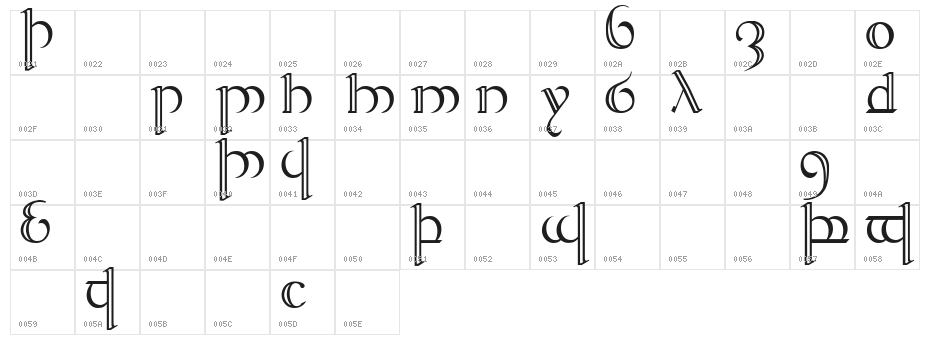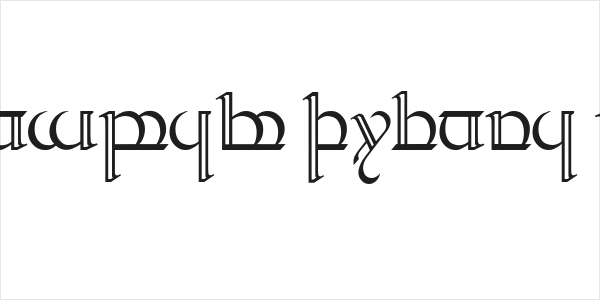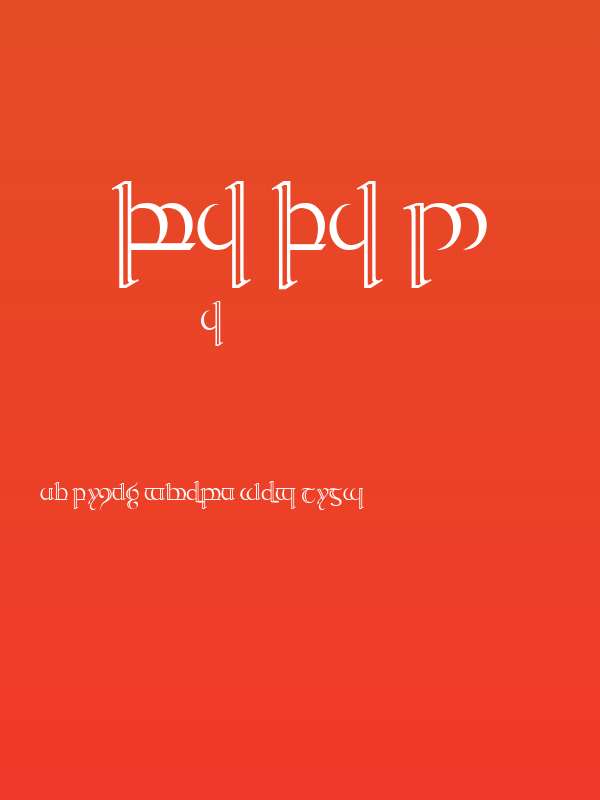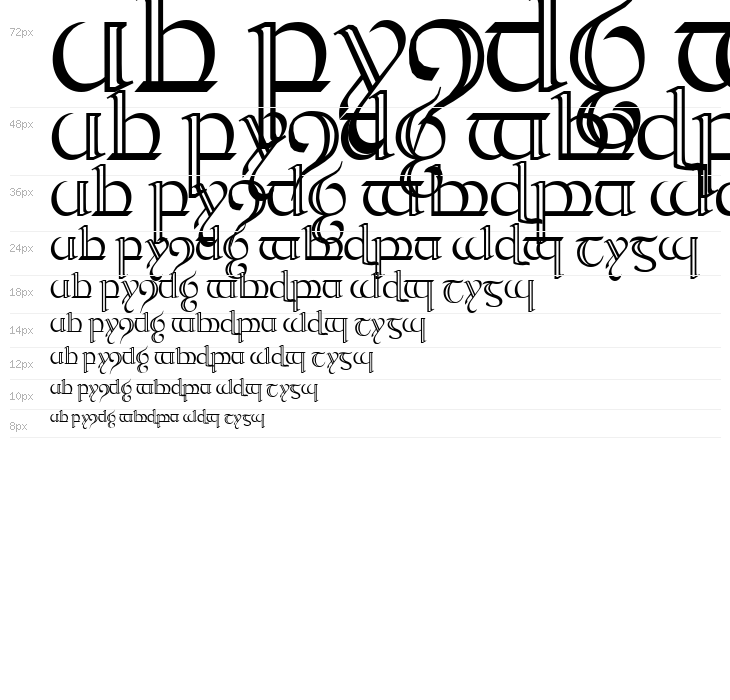
Tengwar Quenya 2 Font
Tengwar Quenya 2 Description
This font is a decorative script inspired by the Elvish Tengwar script from J.R.R. Tolkien's Middle-earth. It features intricate, flowing lines and elegant curves, capturing the essence of a mystical and ancient language. The characters are highly stylized, with a mix of sharp angles and smooth, sweeping arcs that give it a unique and artistic appearance. The font is designed to evoke a sense of fantasy and otherworldliness, making it ideal for projects that require a touch of magic and mystery. Its complex design may not be suitable for body text but works beautifully in decorative contexts.
| Use Case | Logos, Titles, Decorative text |
| Proposed Projects | Ideal for fantasy-themed projects, book covers, movie posters, or any creative work requiring a mystical touch. |